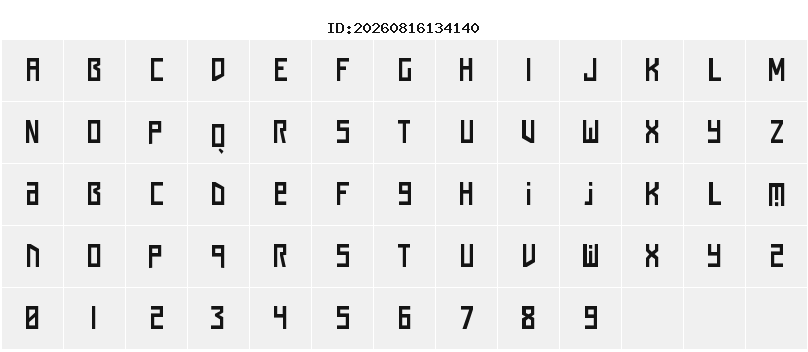
• Font Name: Squaren Daren NC
• Full Font Name: Squaren Daren NC
• Version: Version 1.00 June 8, 2011, initial release
About Squaren Daren NC.ttf
Squaren Daren NC.ttf is a modern, elegant sans-serif font designed for ultimate readability and visual harmony. Perfect for branding, headlines, web design, and print materials.